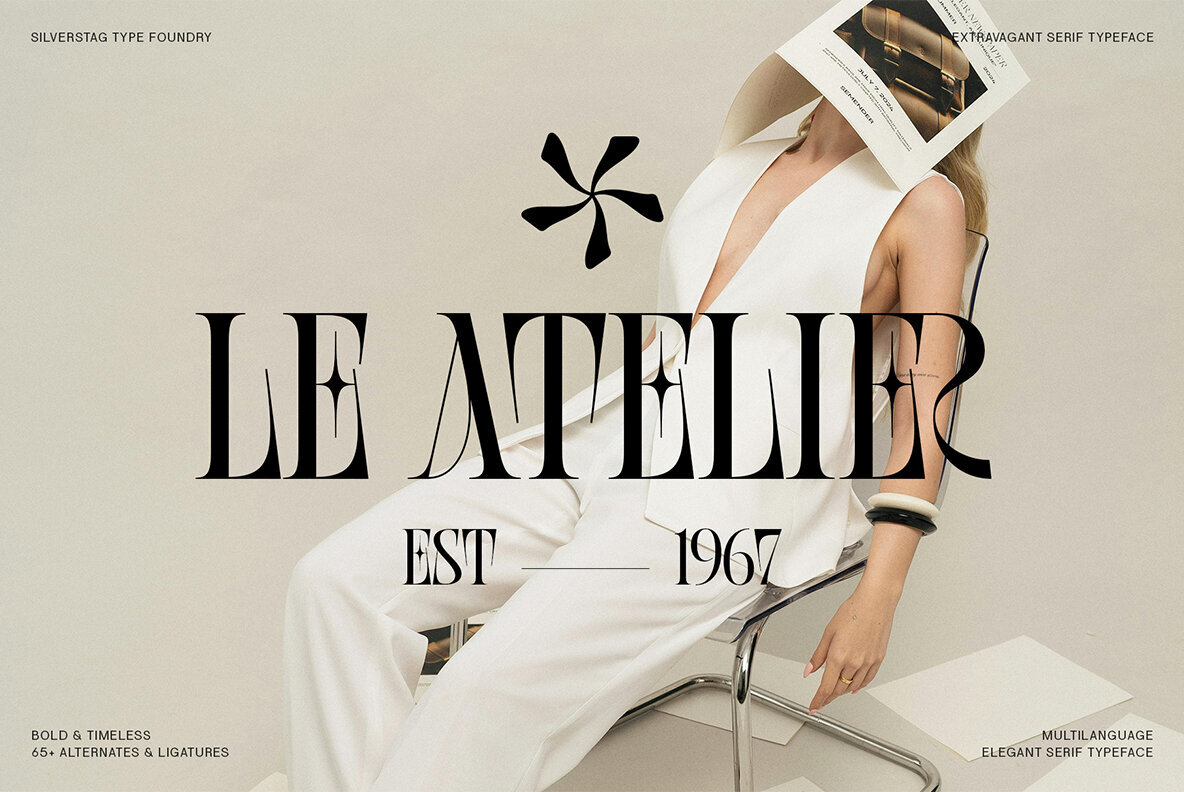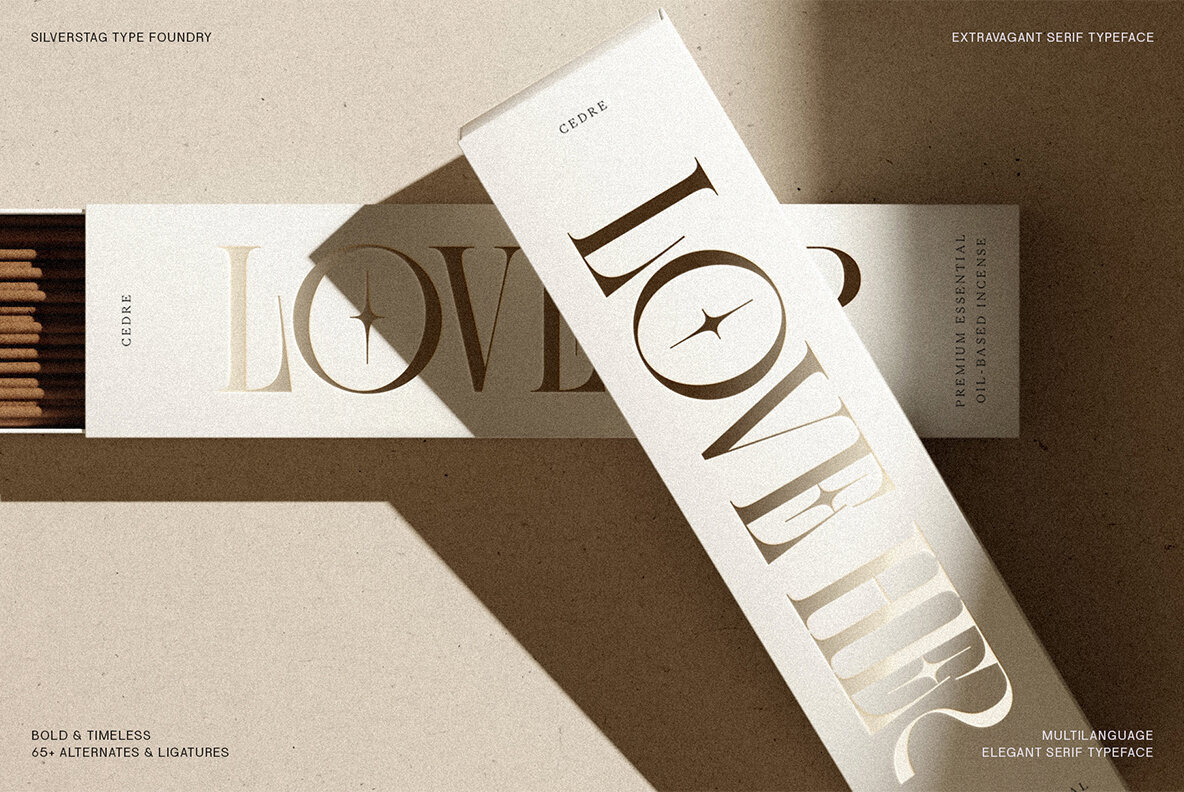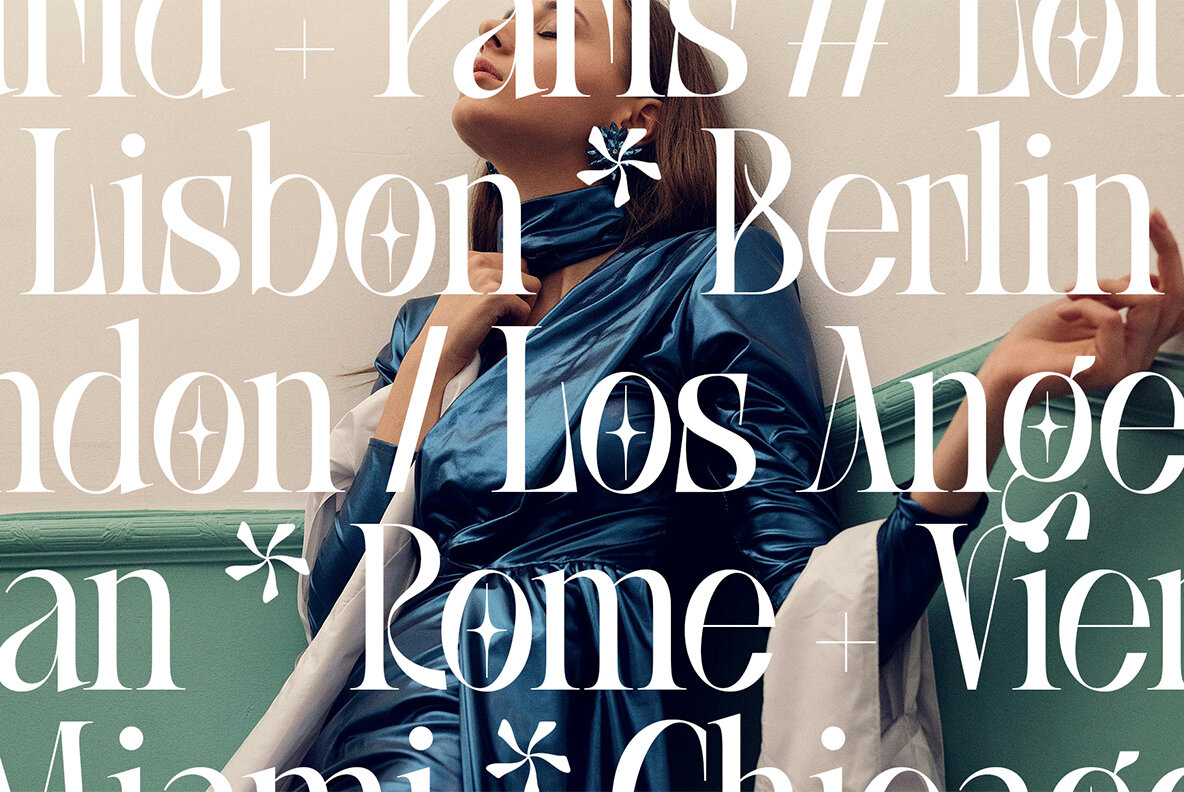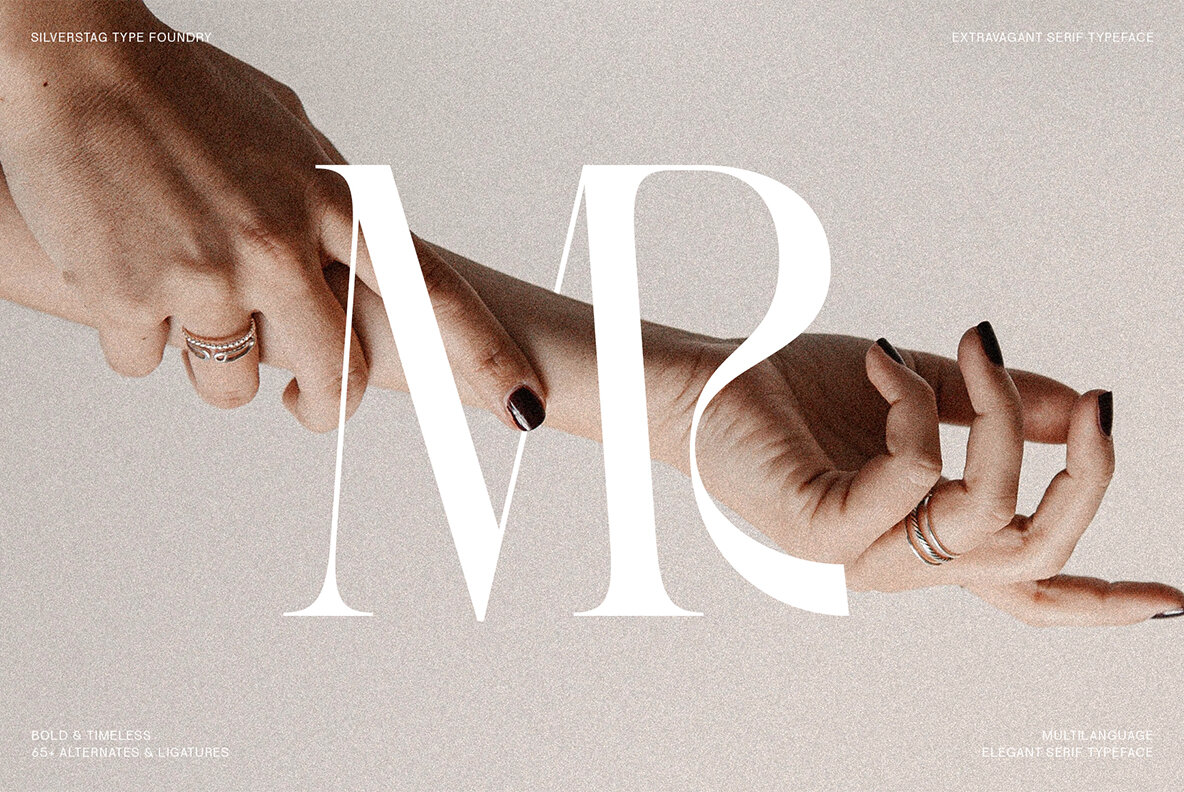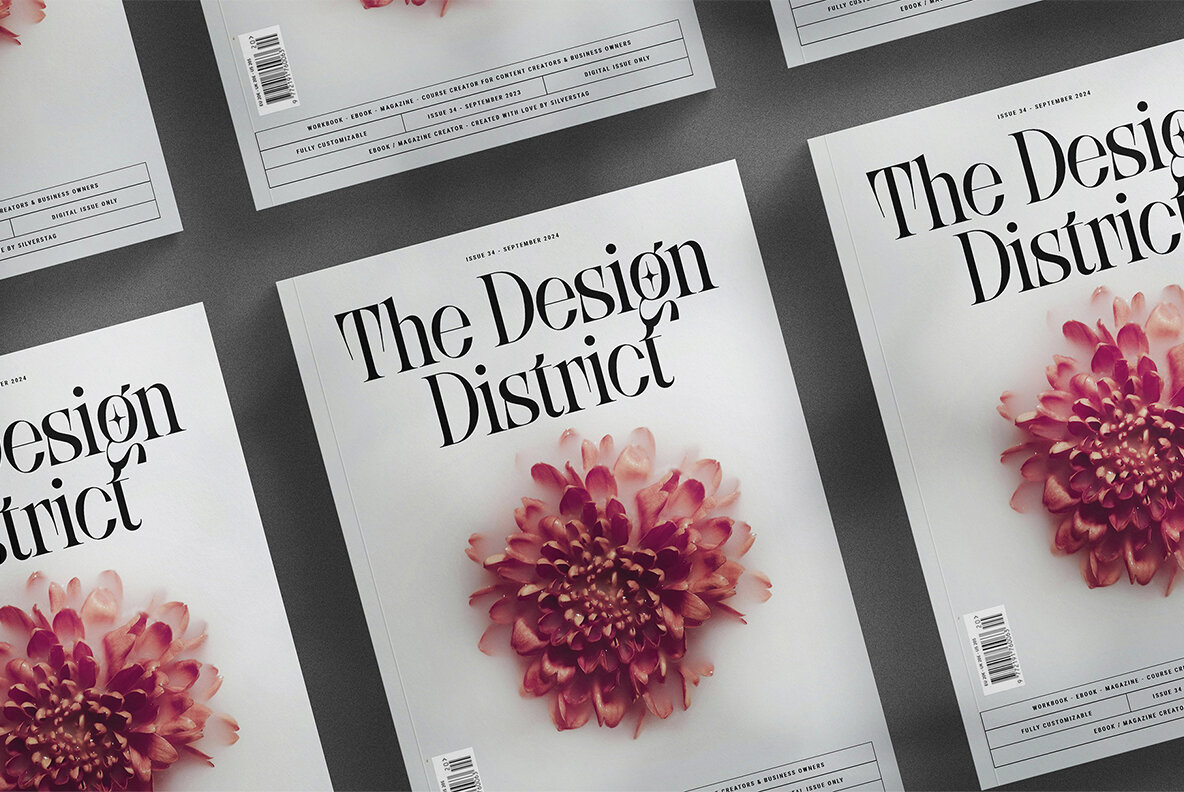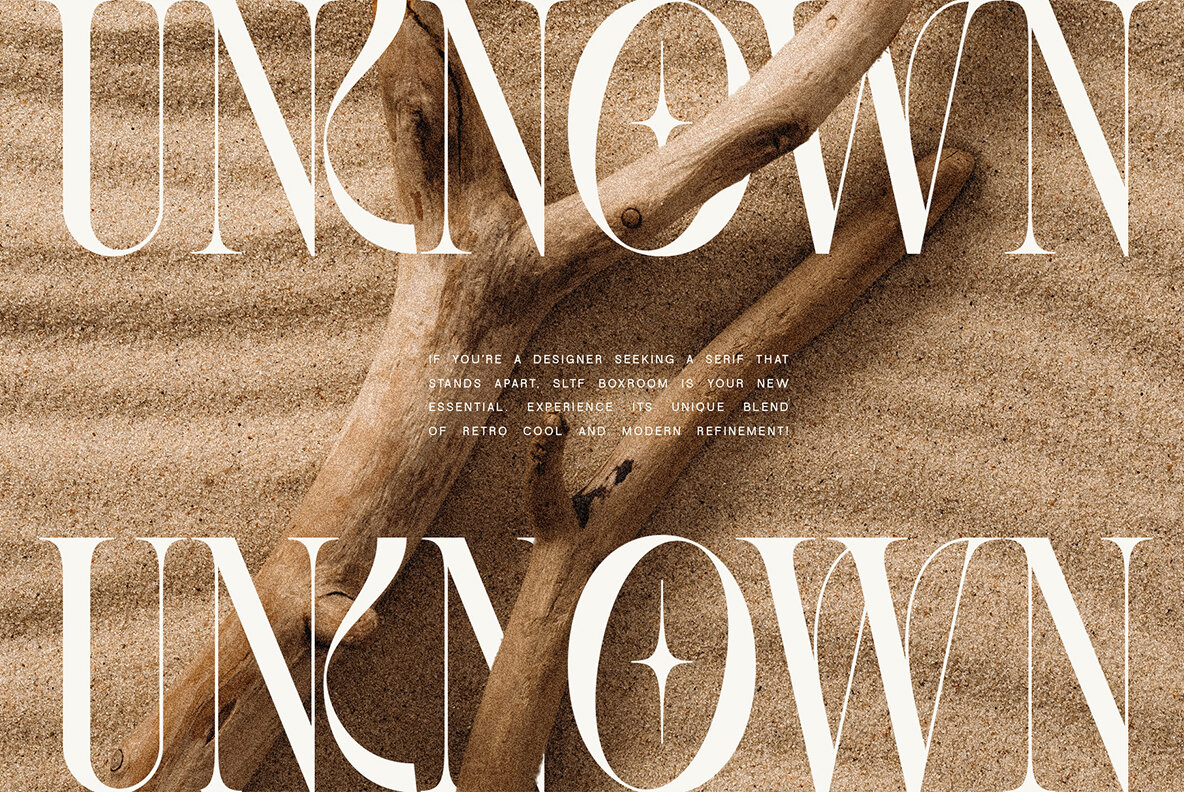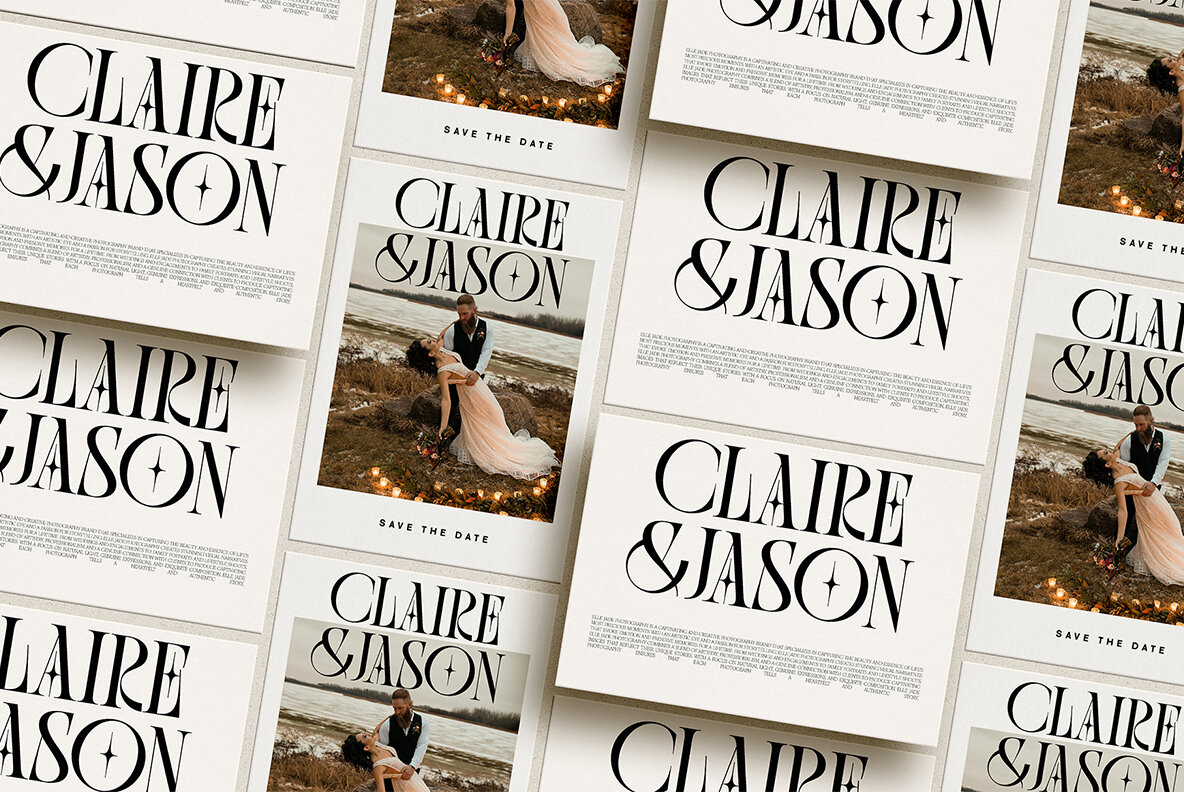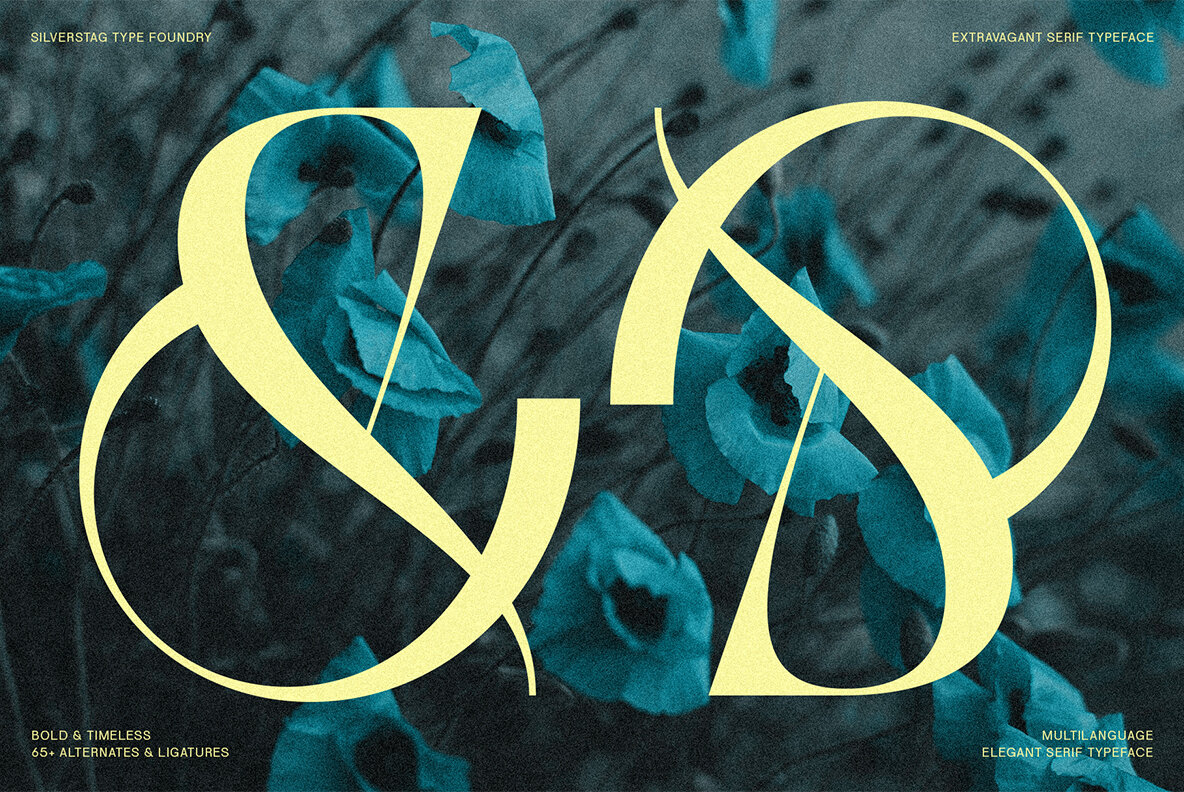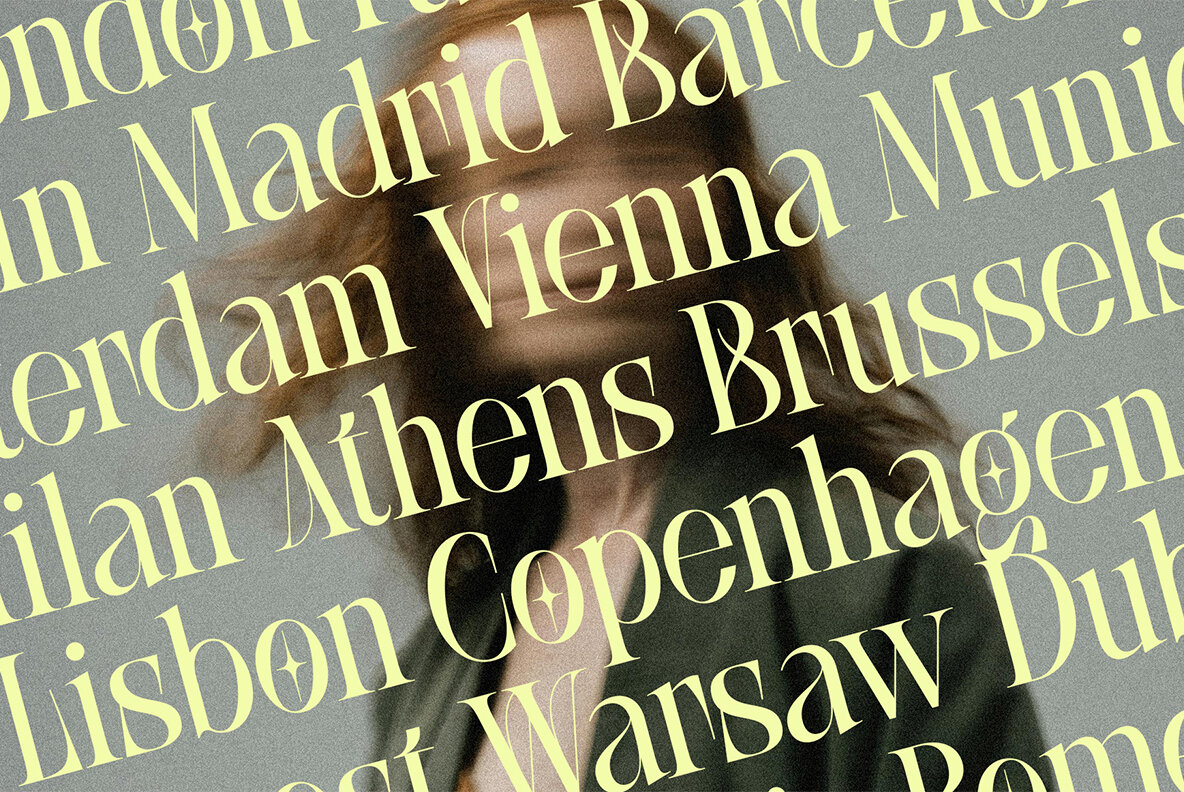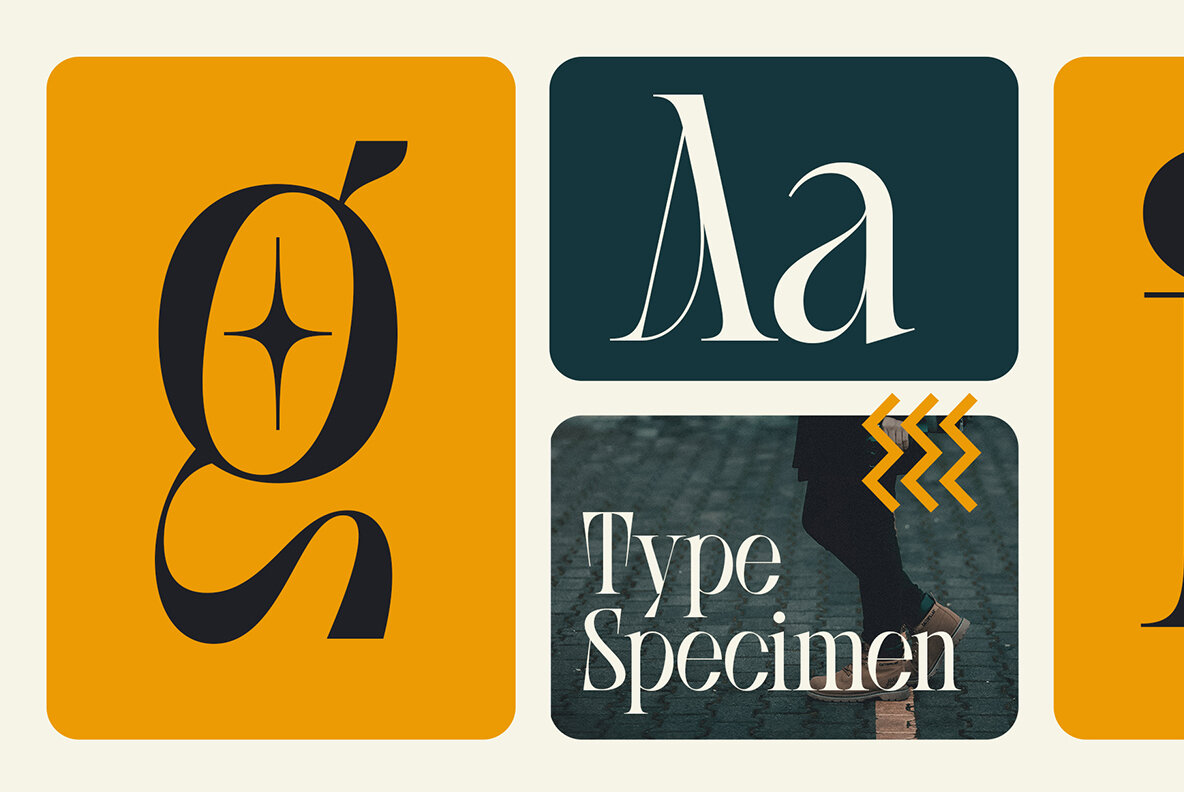
SLTF BOXROOM Font
Introducing BOXROOM, a typeface that dares to be different. This isn't your average serif; it's a bold, expressive statement piece that's ready to elevate your designs with its unique blend of vintage elegance and modern flair. Imagine those sharp, captivating serifs, like a perfectly tailored suit with a rebellious edge. And those cool little decorations on letters like O, Q, E, and F? They're like hidden gems waiting to be discovered, adding a touch of surprise and delight to every word. But BOXROOM is more than just a pretty face. With over 65 ligatures and alternate letters, it's incredibly versatile, allowing you to create truly unique and captivating typography. And with support for over 400 languages, BOXROOM speaks to a global audience, making it perfect for any project that demands a touch of sophistication and a whole lot of personality. Here's what sets BOXROOM apart: Where BOXROOM shines: BOXROOM is more than just a font; it's a tool for self-expression. It's an invitation to break the mold and create something truly unique. So, go ahead, unleash your creativity, and let BOXROOM transform your designs into works of art.